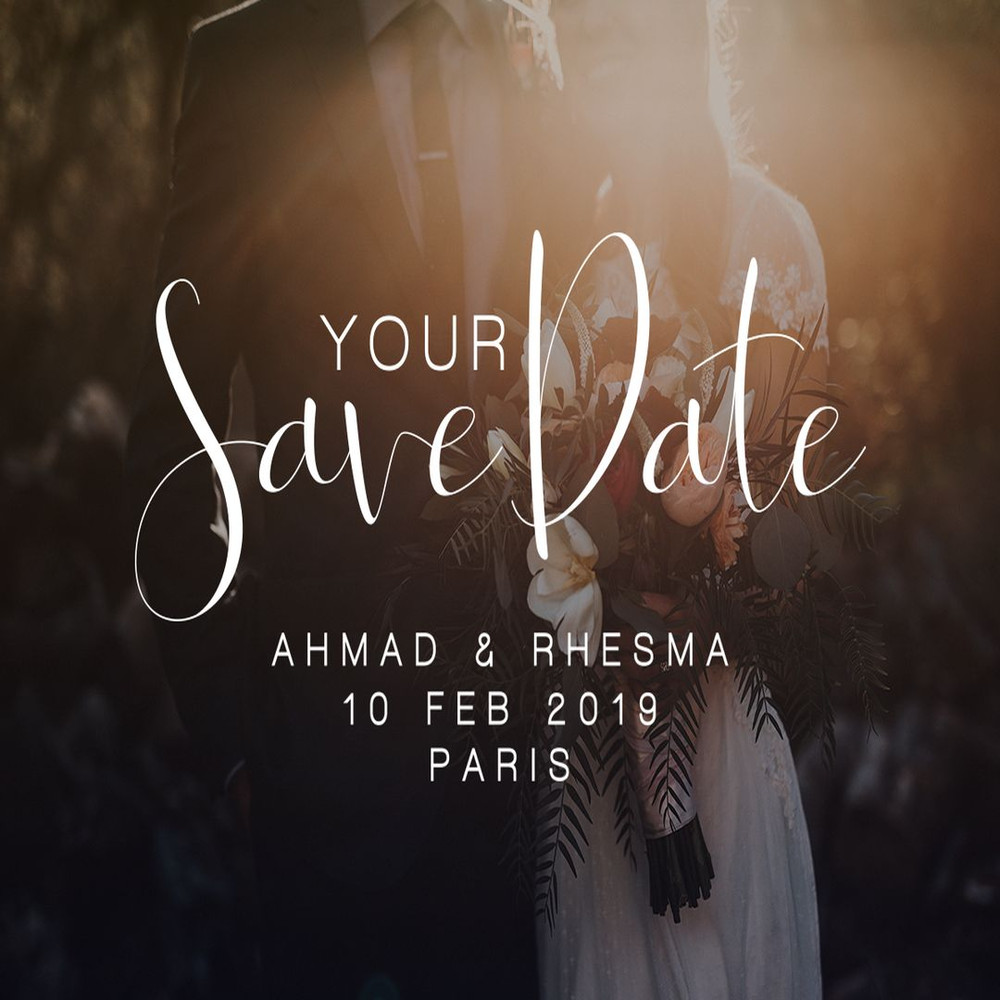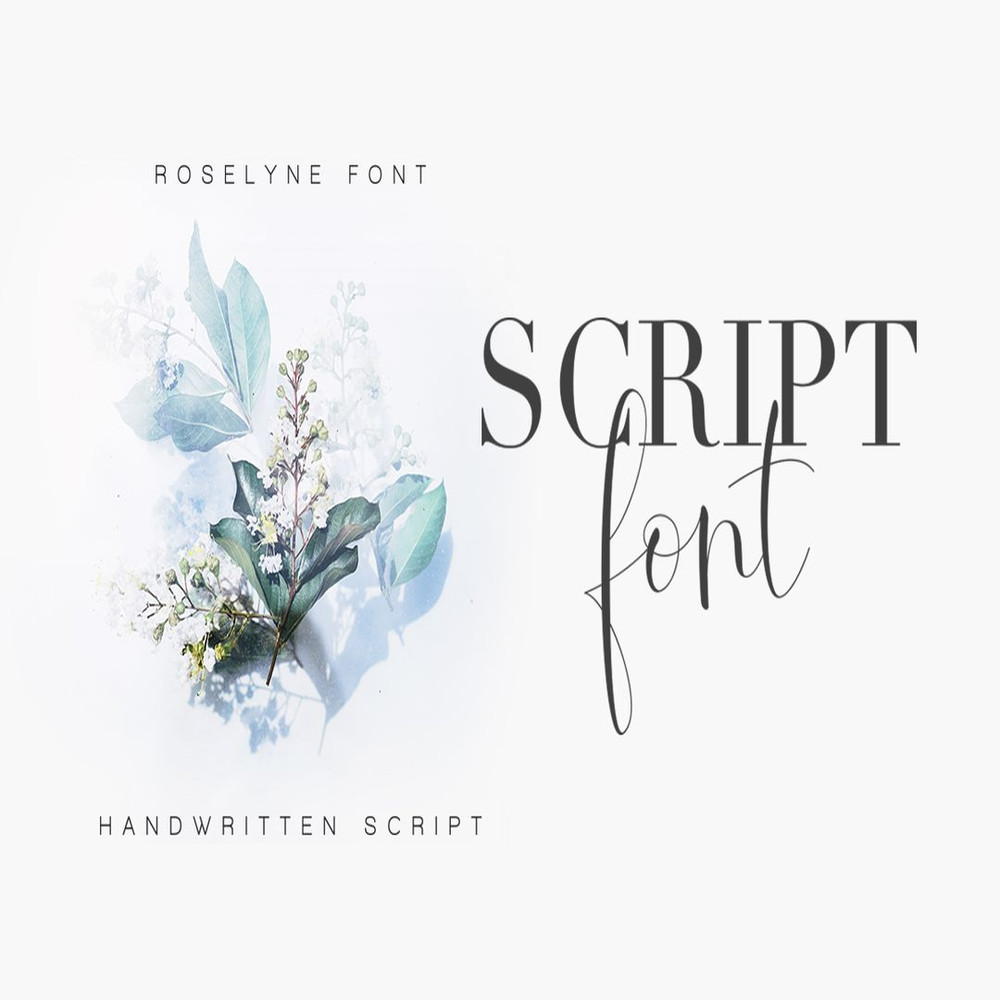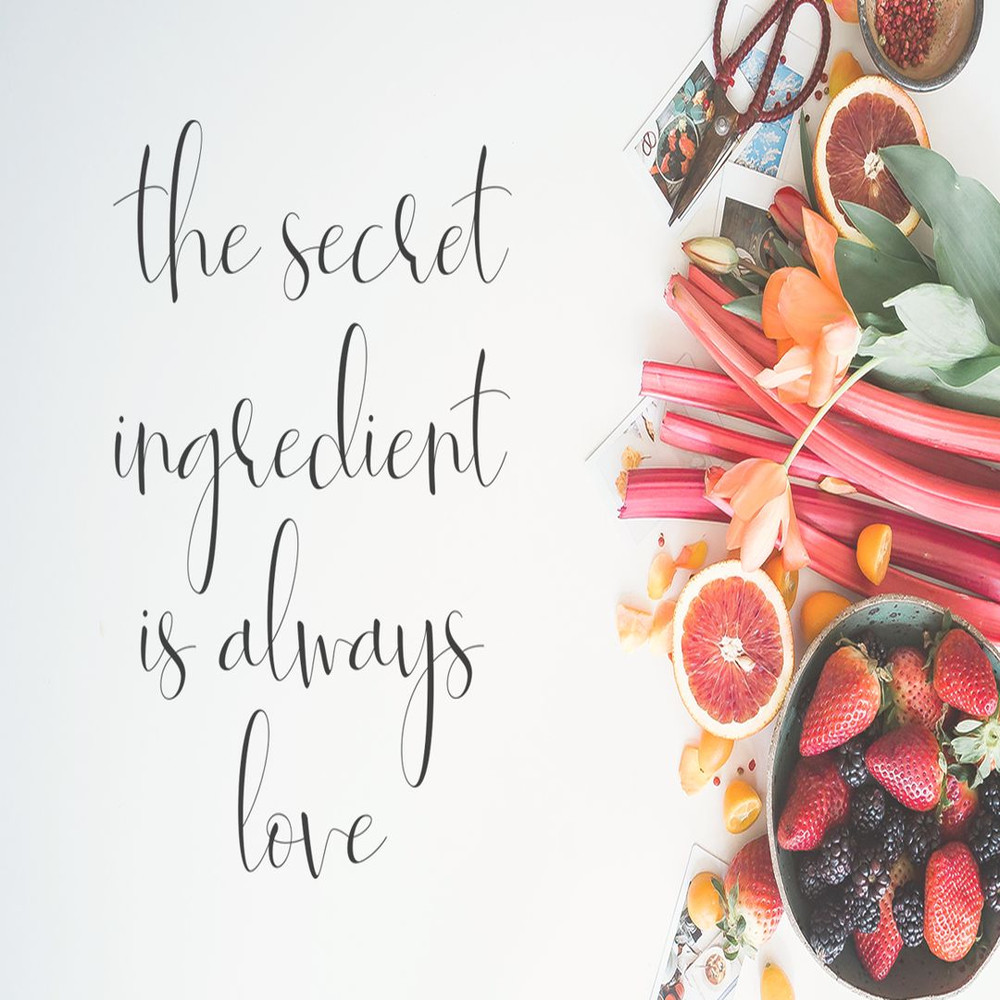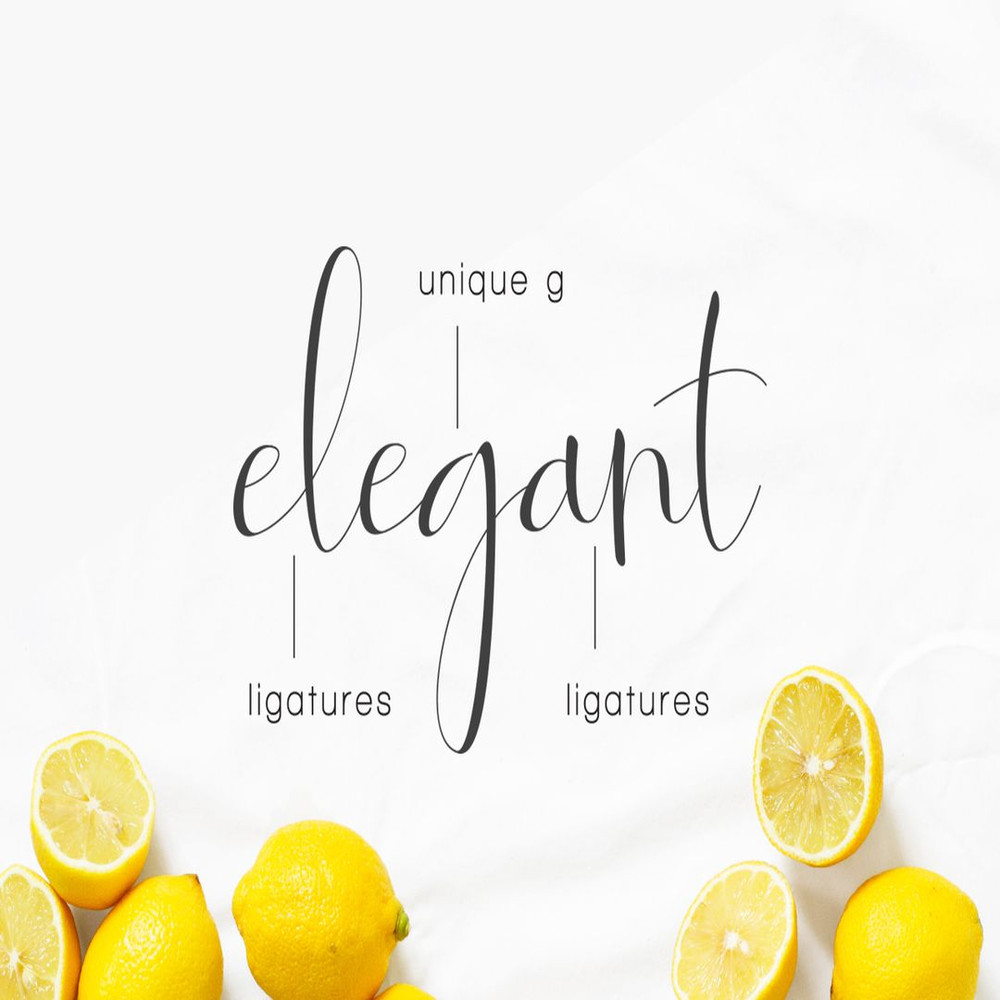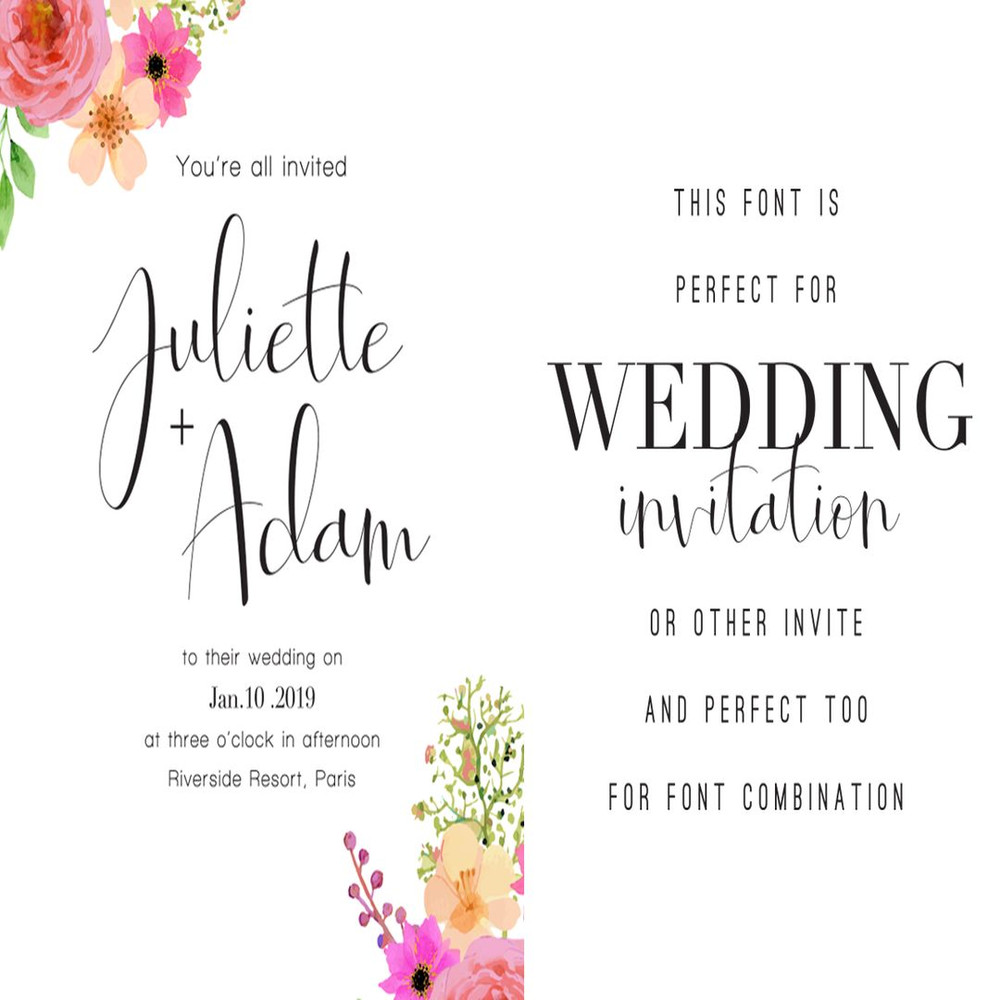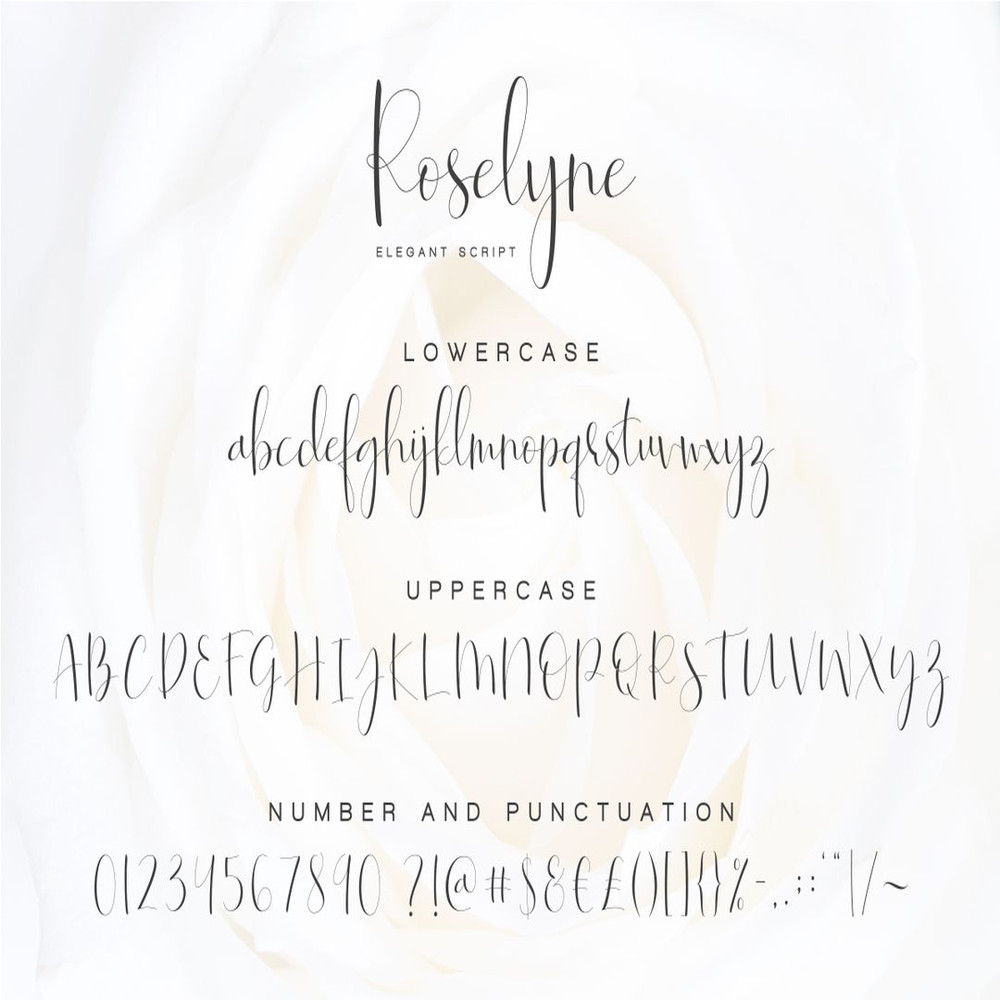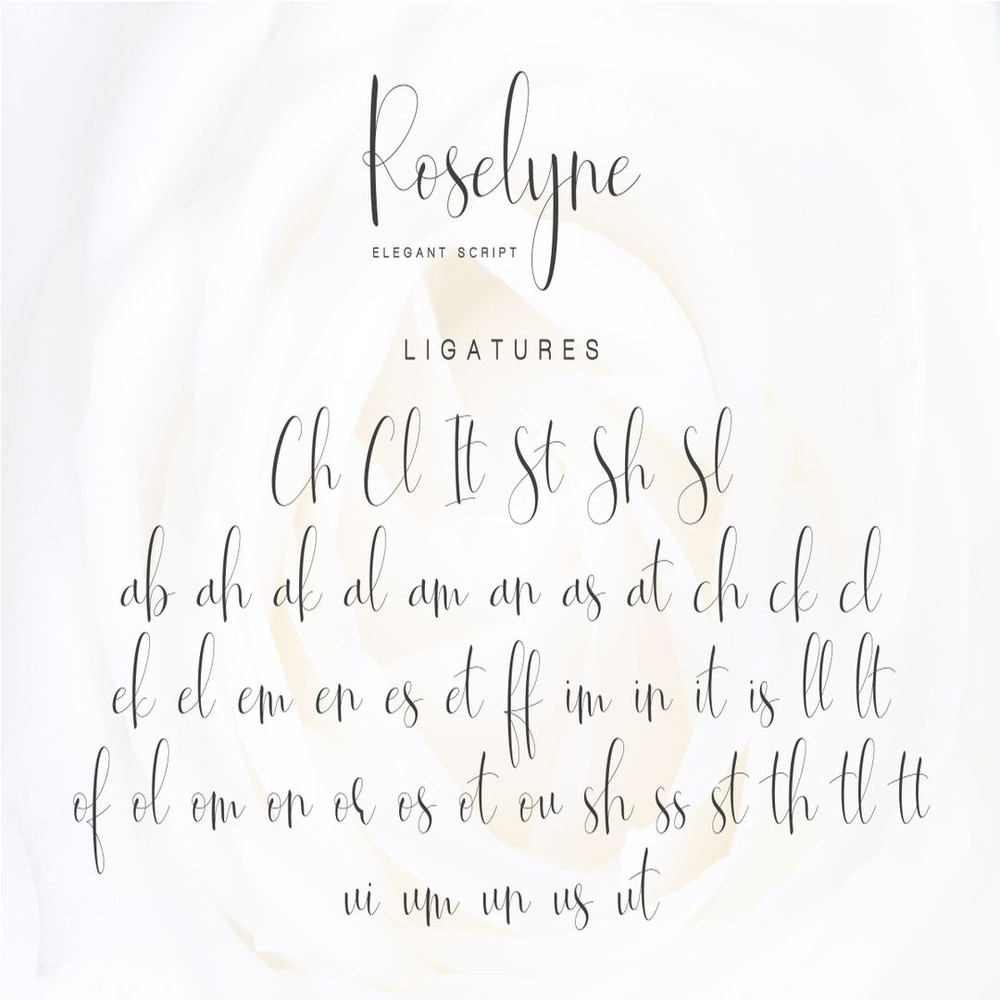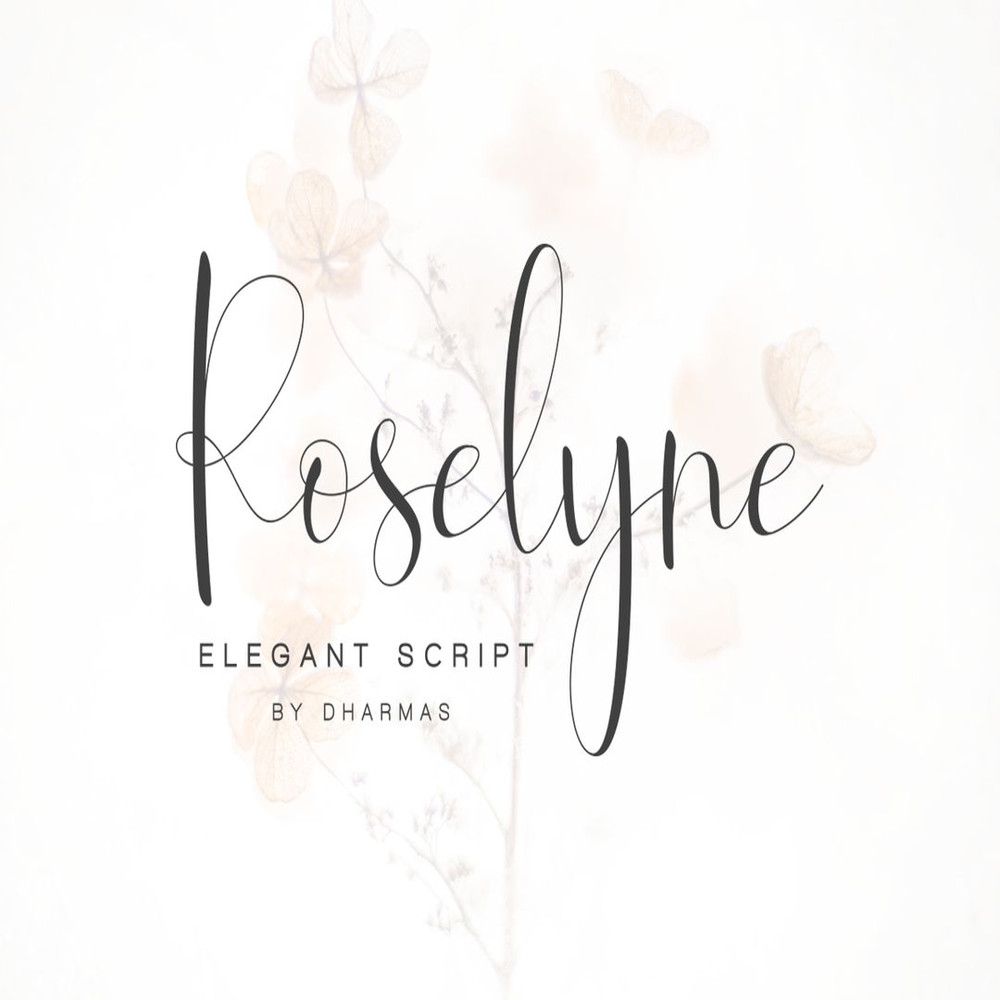
Roselyne – Caligraphy Script Trending Fonts - Digital Font
Roselyne is a modern calligraphy font with handwritten, modern, sophisticated flows. It is perfect for branding, wedding invites, greeting cards and any others
For those of you who are needing a touch of elegance and modernity for your designs, this font was created for you:)
Roselyne was built with OpenType features, ligatures, punctuation and number,